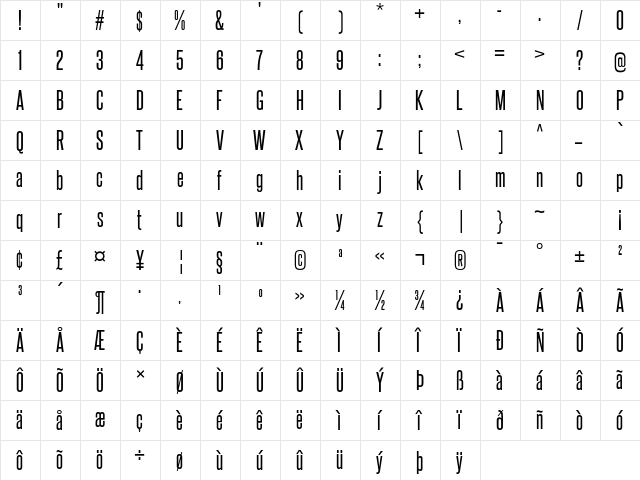
Steelfish Regular
Design Context for Steelfish Typeface
Steelfish offers clean, dependable letterforms without strong stylistic allegiance, making it a practical choice for designers who need flexibility.
Pro Tip: Use Steelfish in both headline and body roles to test its range before committing to a single application.